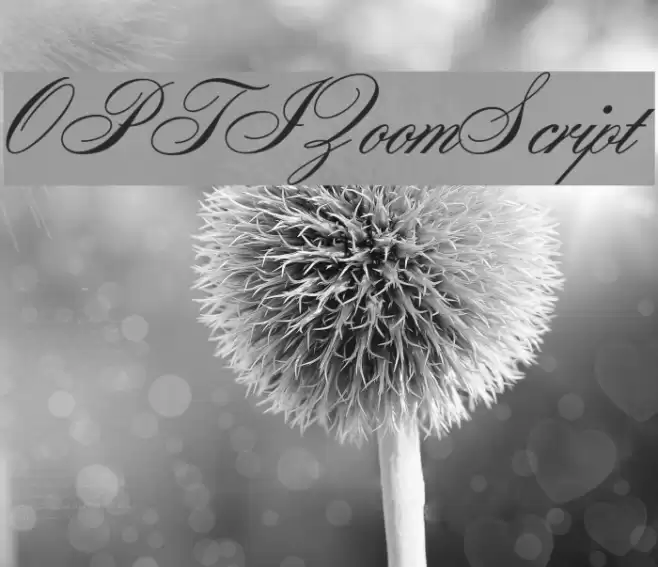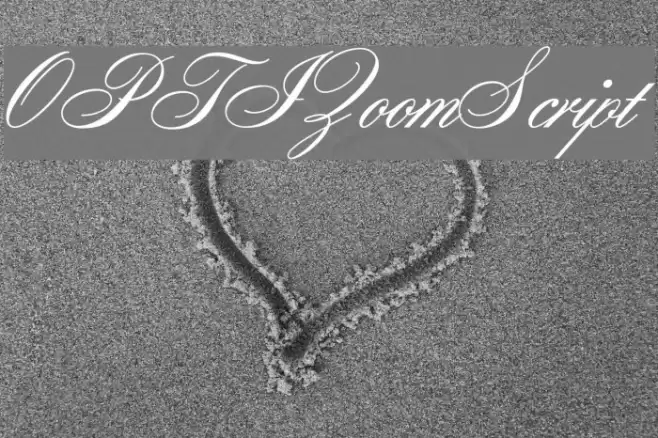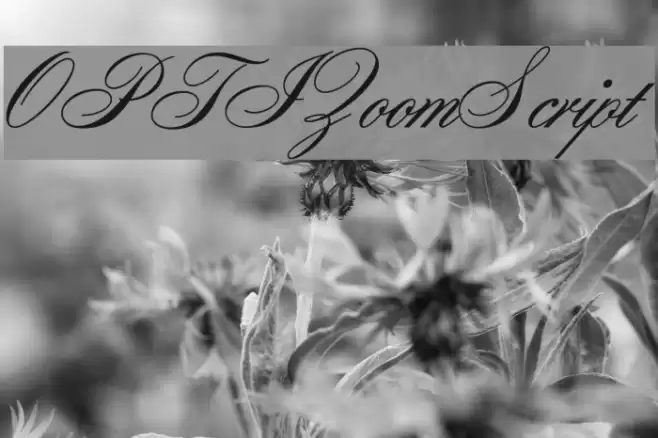
OPTIZoomScript Font
OPTIZoomScript Description
This elegant script font features flowing, interconnected letters with a classic and sophisticated appearance. The uppercase letters are ornate, with sweeping curves and flourishes that give a sense of movement and grace. The lowercase letters maintain a consistent style, with smooth transitions and a slightly slanted orientation, enhancing the cursive feel. The numerals are stylishly designed to match the overall aesthetic, while the special characters are crafted with similar attention to detail, ensuring a cohesive look across all glyphs. This font exudes a timeless charm, making it ideal for formal and decorative uses.
An elegant script font with flowing, interconnected letters and ornate flourishes from Uncategorized fonts.
- Proposed Projects: Ideal for wedding invitations, elegant branding, formal event programs, and decorative signage.
- Overall Style: Classic
- Use Case: Logos, Invitations, Decorative text